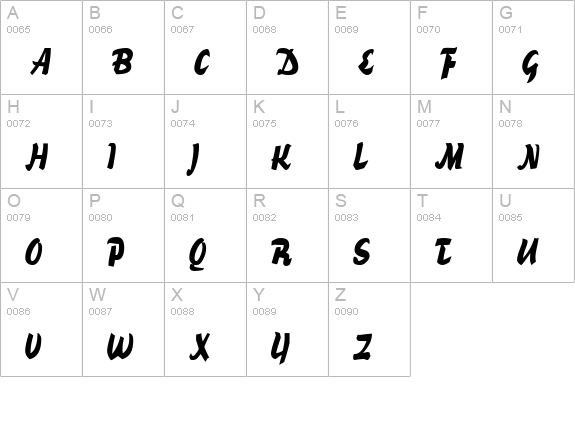
BrookscriptNarrow Regular Font Details
BrookscriptNarrow Regular is the standard, neutral variant in the BrookscriptNarrow typeface family \xE2\x80\x94 well suited to general body text, paragraphs, and standard typographic work.
BrookscriptNarrow Regular is a beautiful and elegant font that exudes a sense of sophistication and style. With its slender letterforms and graceful curves, this font is perfect for adding a touch of refinement to any design project. Whether you're creating invitations, posters, or branding materials, BrookscriptNarrow Regular is sure to make a lasting impression. And the best part? This stunning font is available for free download at FontsMarket.com. So go ahead and elevate your designs with the timeless charm of BrookscriptNarrow Regular today!